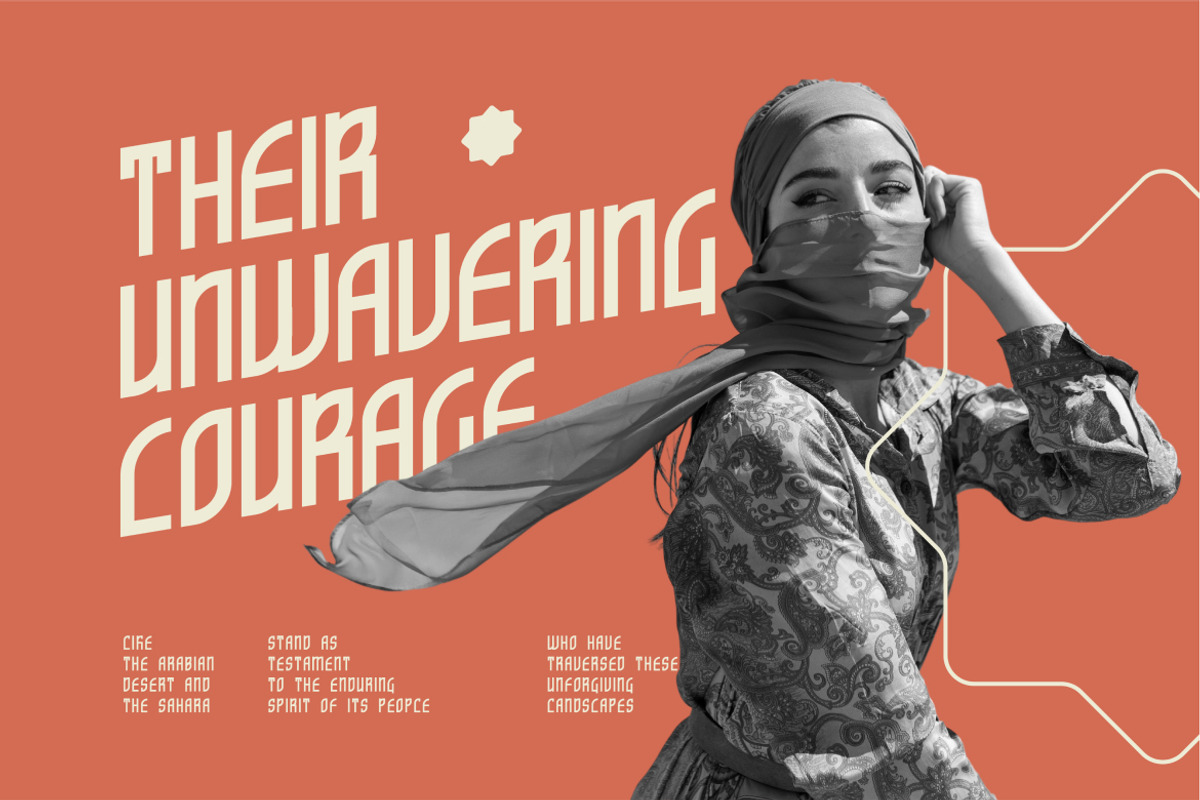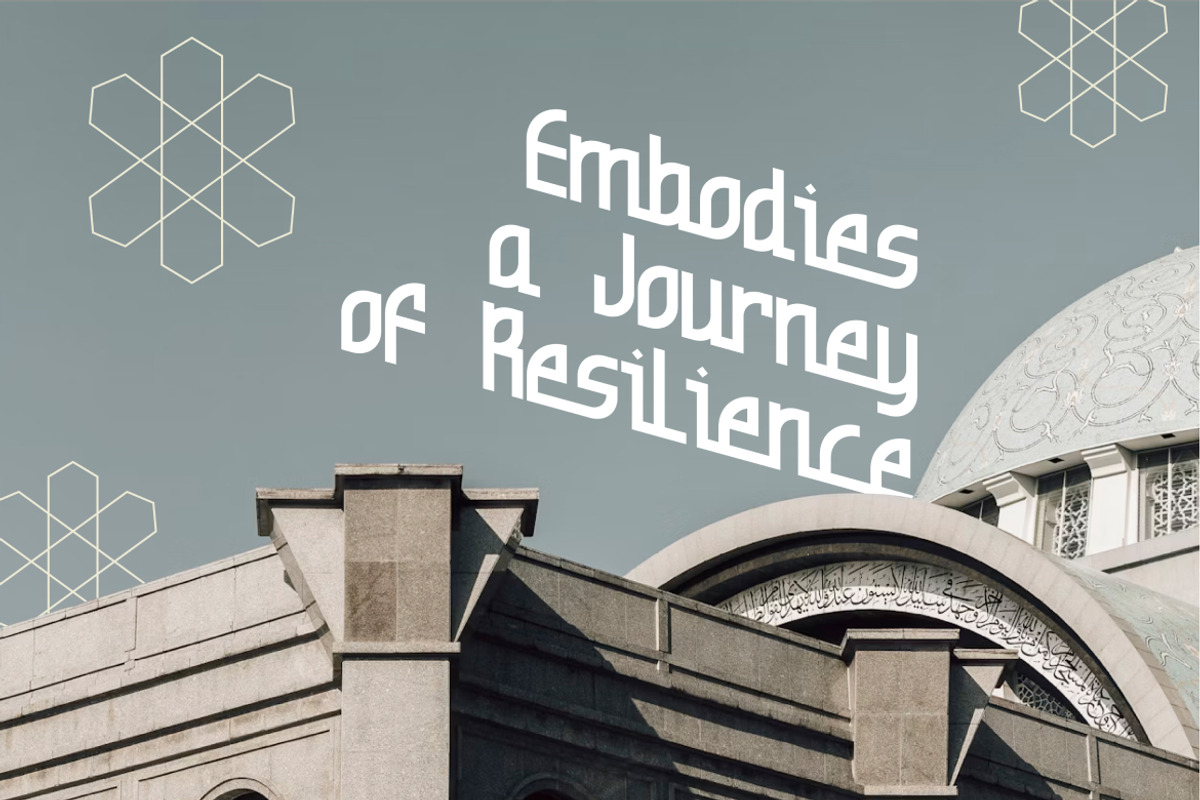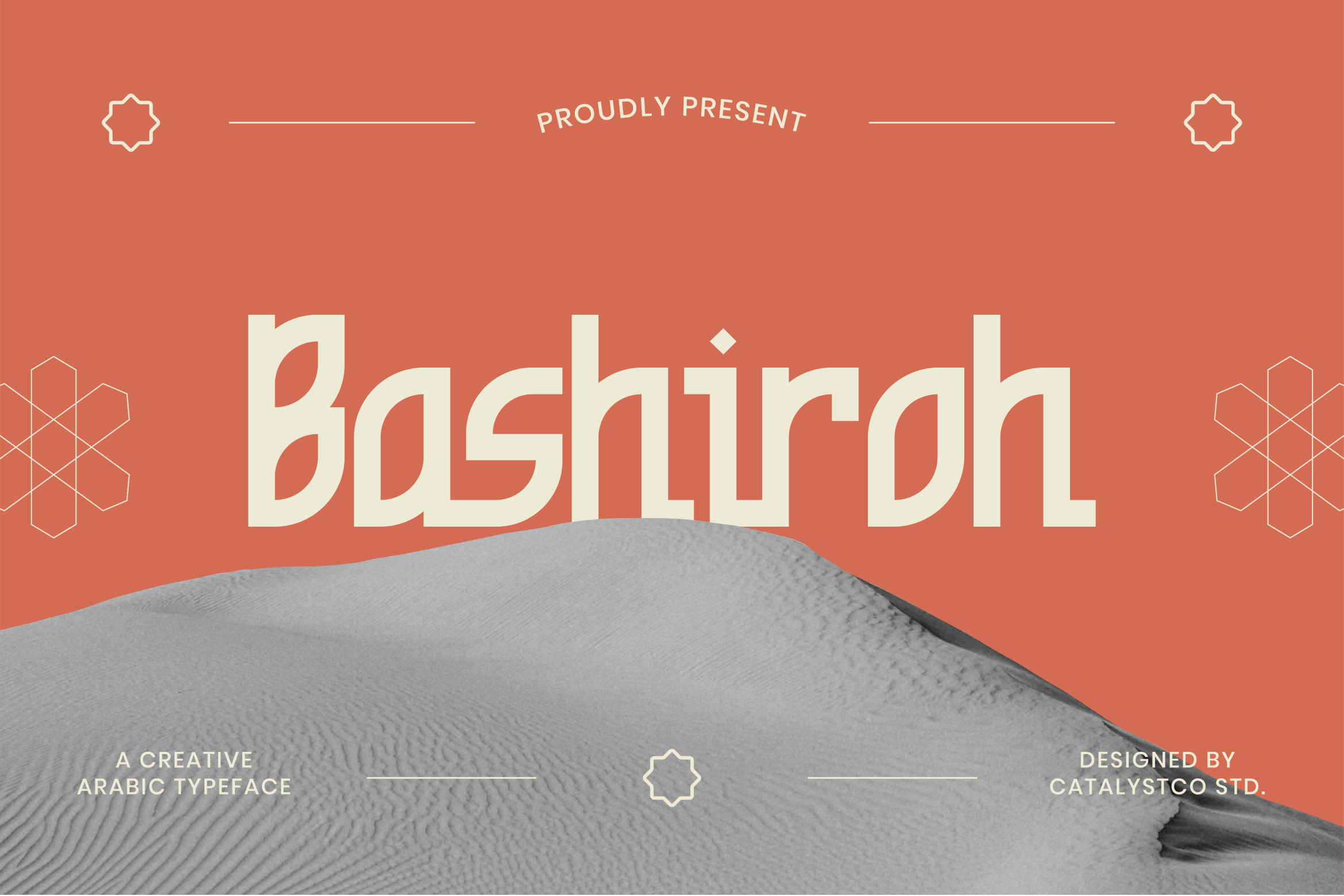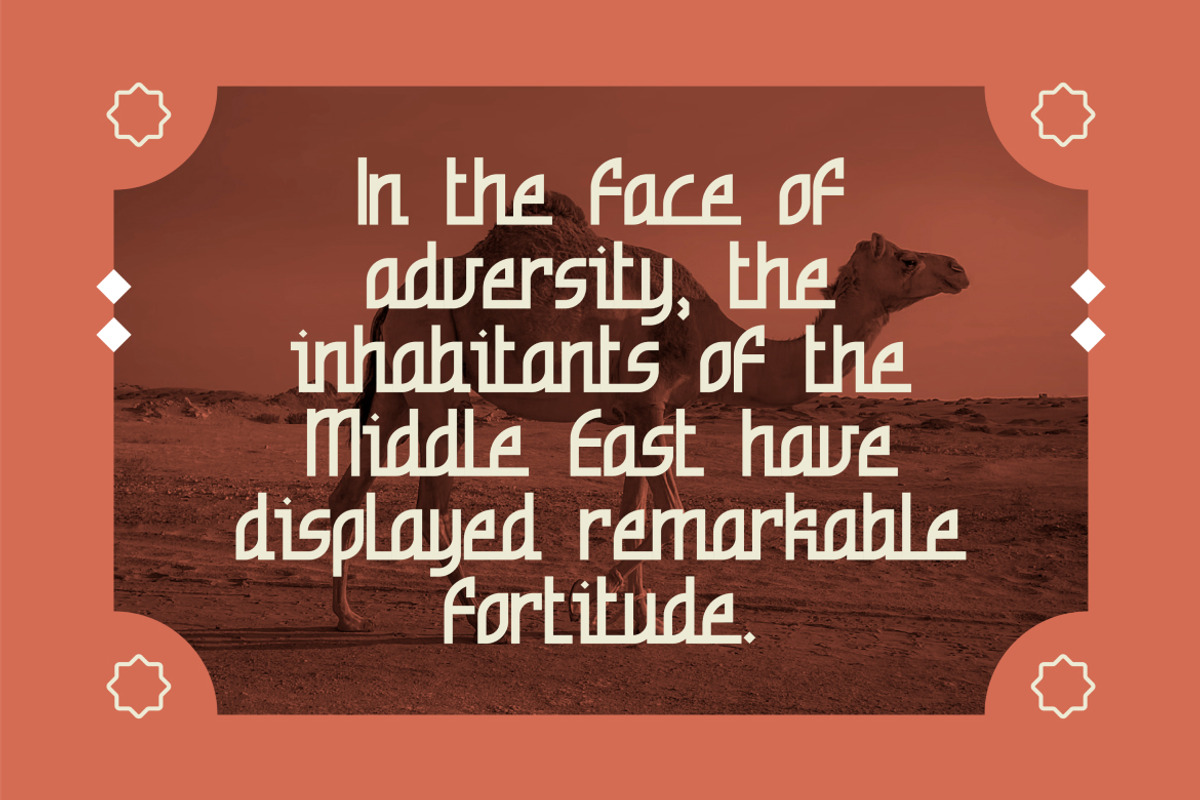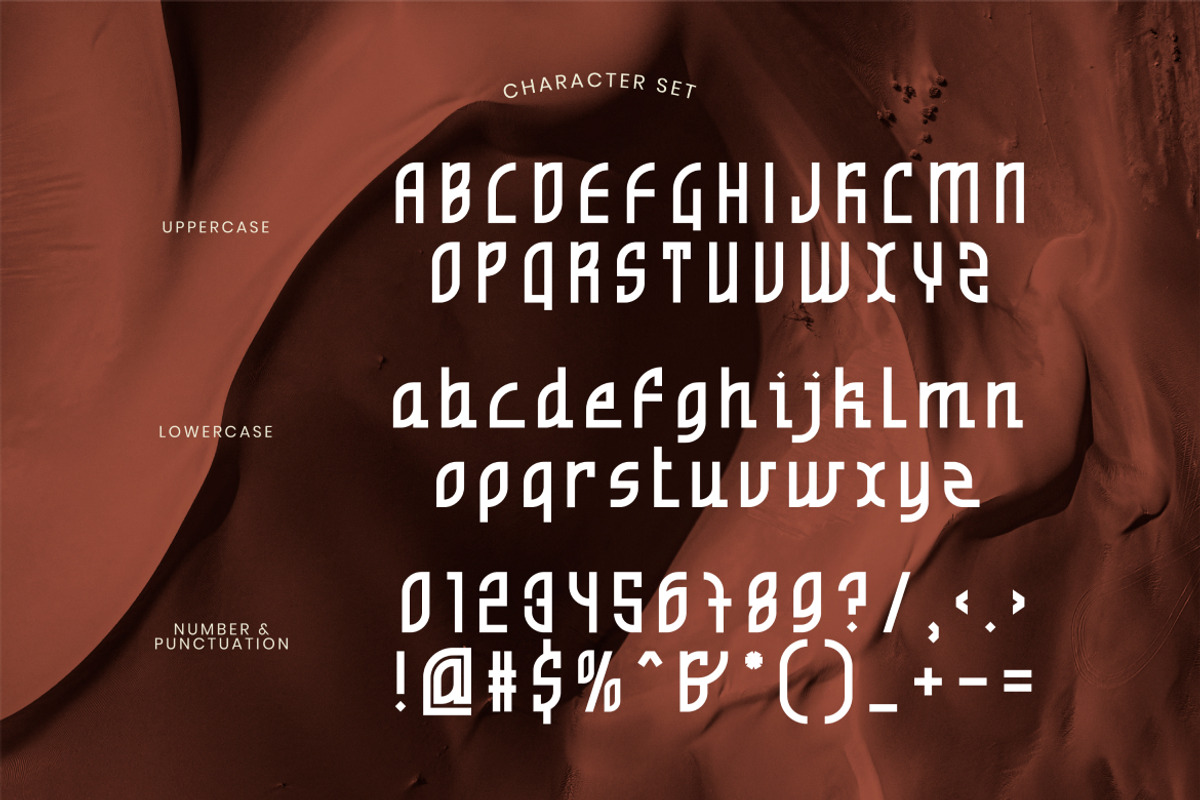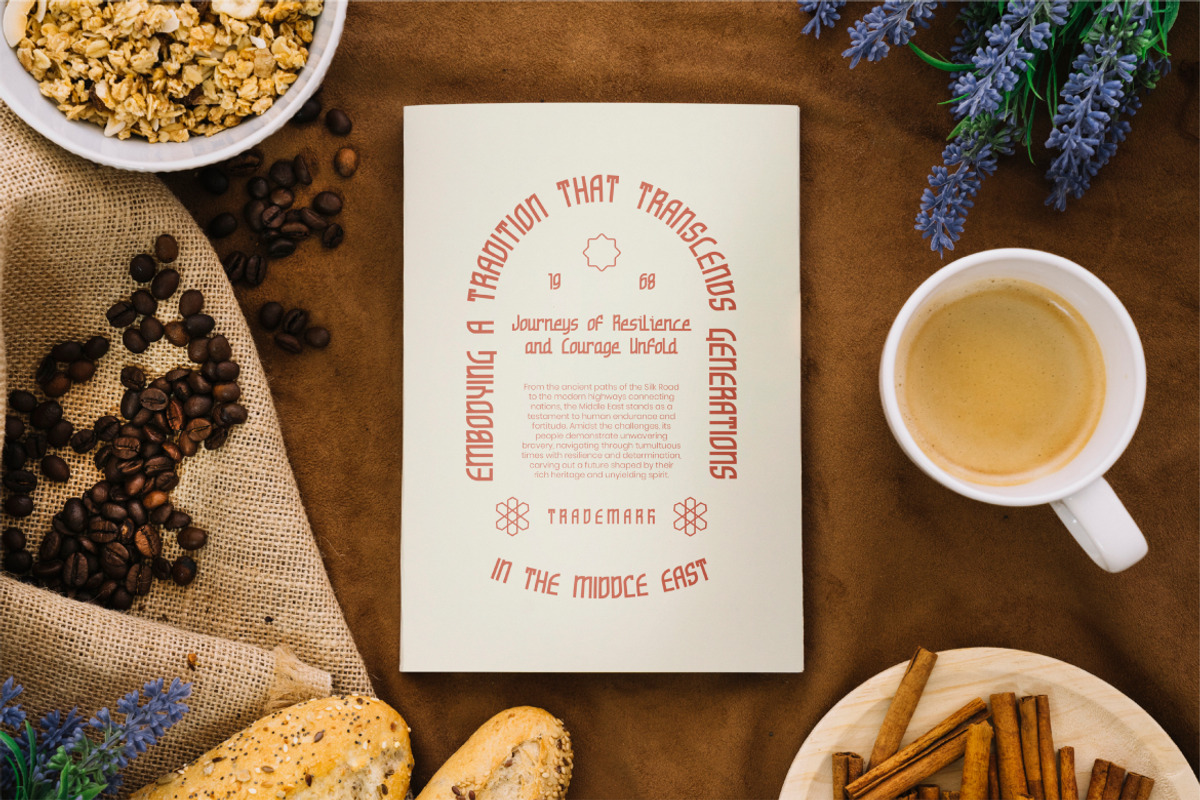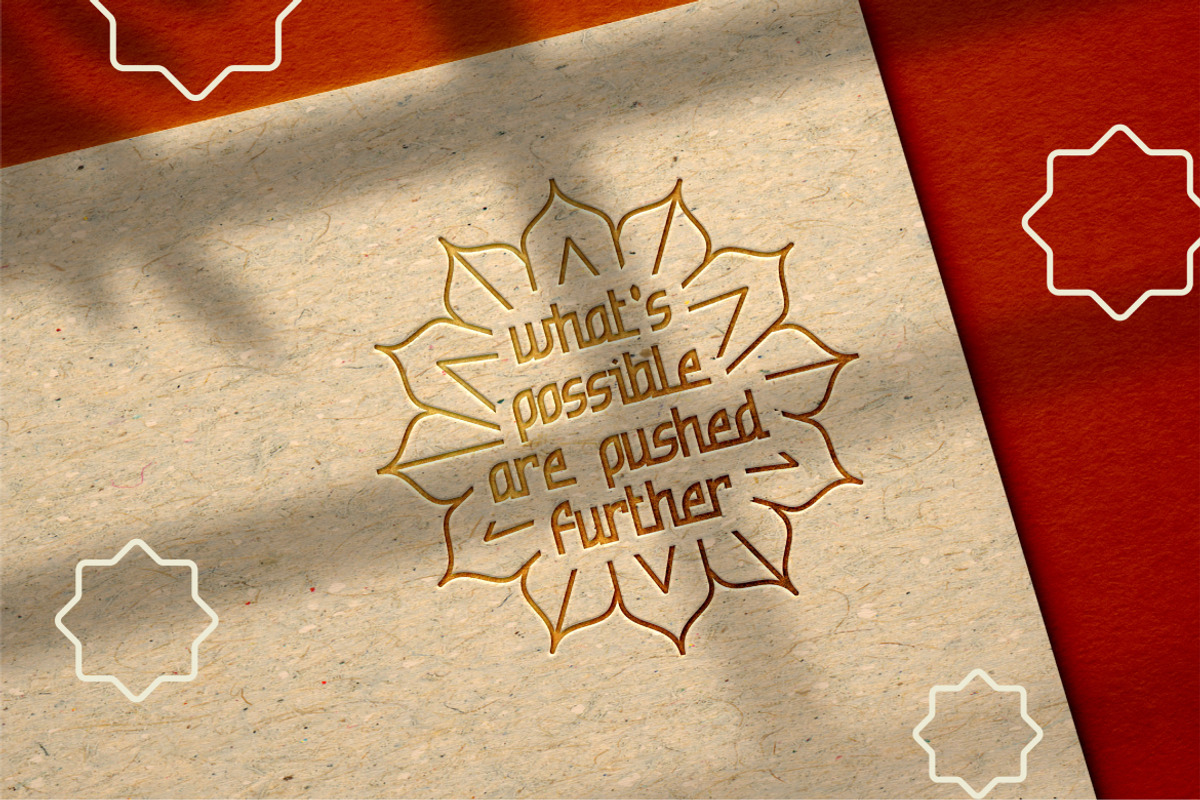
Bashiroh Arabic Font
Bashiroh Arabic Font typeface excellent used for the manufacture quote text, logotype, header magazine, and many more.
Main Features
- Numeral & Punctuations